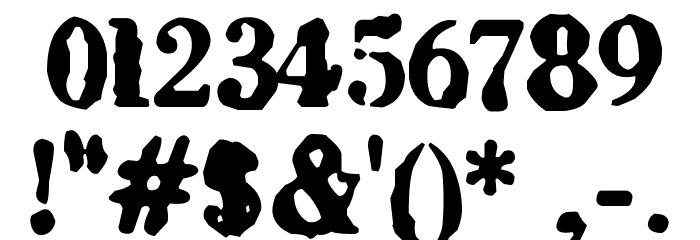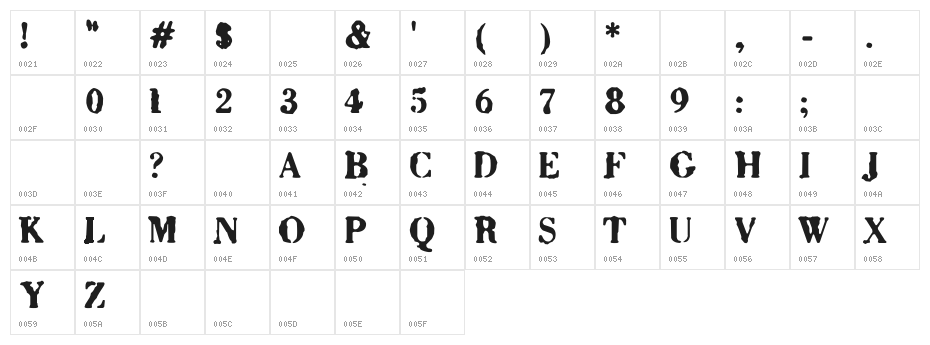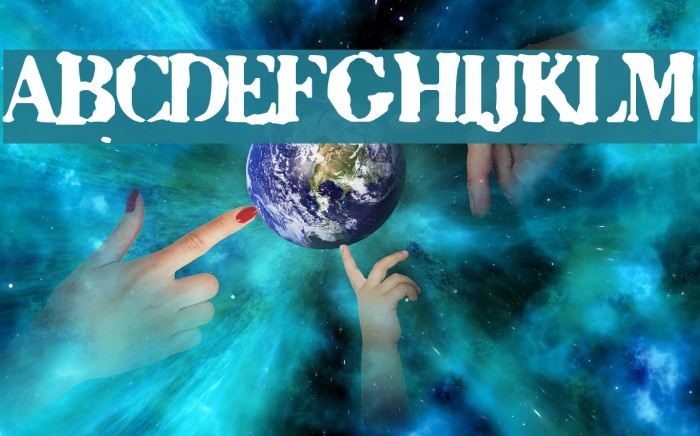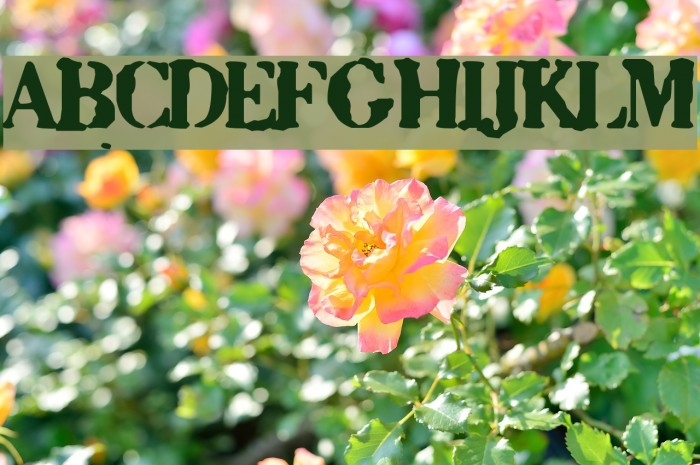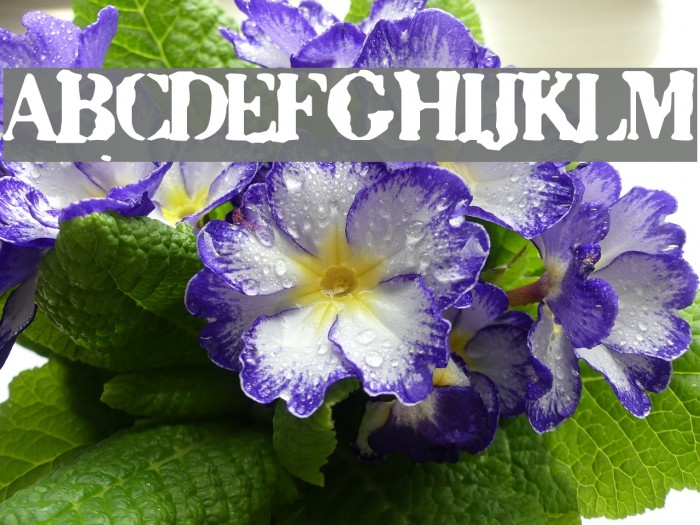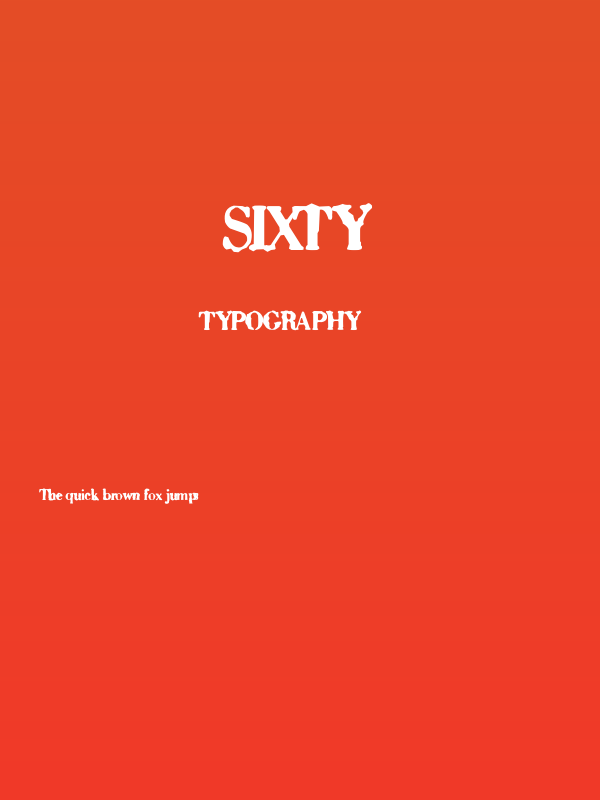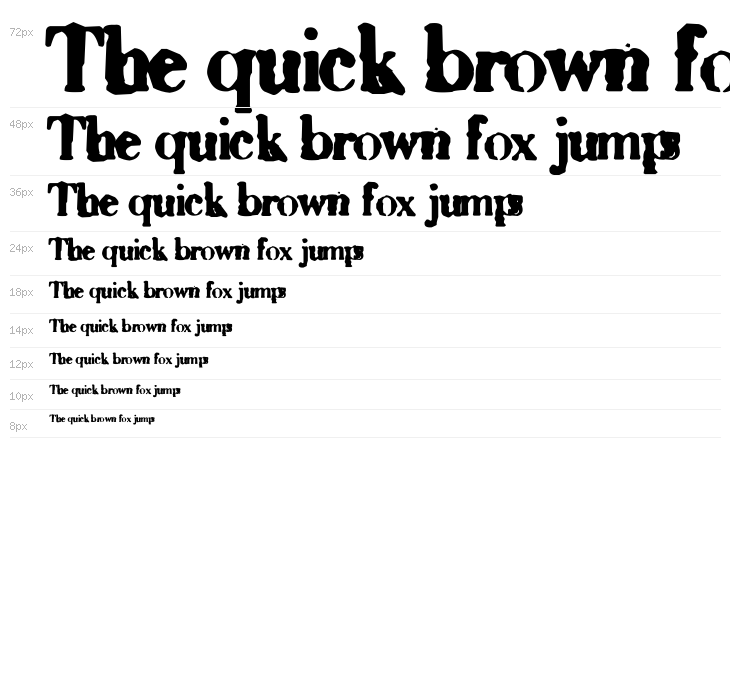
Sixty Font
Sixty Description
This font features a bold and rugged style with a distressed appearance, giving it a unique and eye-catching look. The characters are heavily stylized with irregular edges and a hand-crafted feel, making it ideal for projects that require a vintage or grunge aesthetic. The uppercase and lowercase letters maintain a consistent weight, while the numbers and special characters follow the same design principles, ensuring uniformity across all text. Its distinctive appearance makes it suitable for creative projects that aim to stand out.